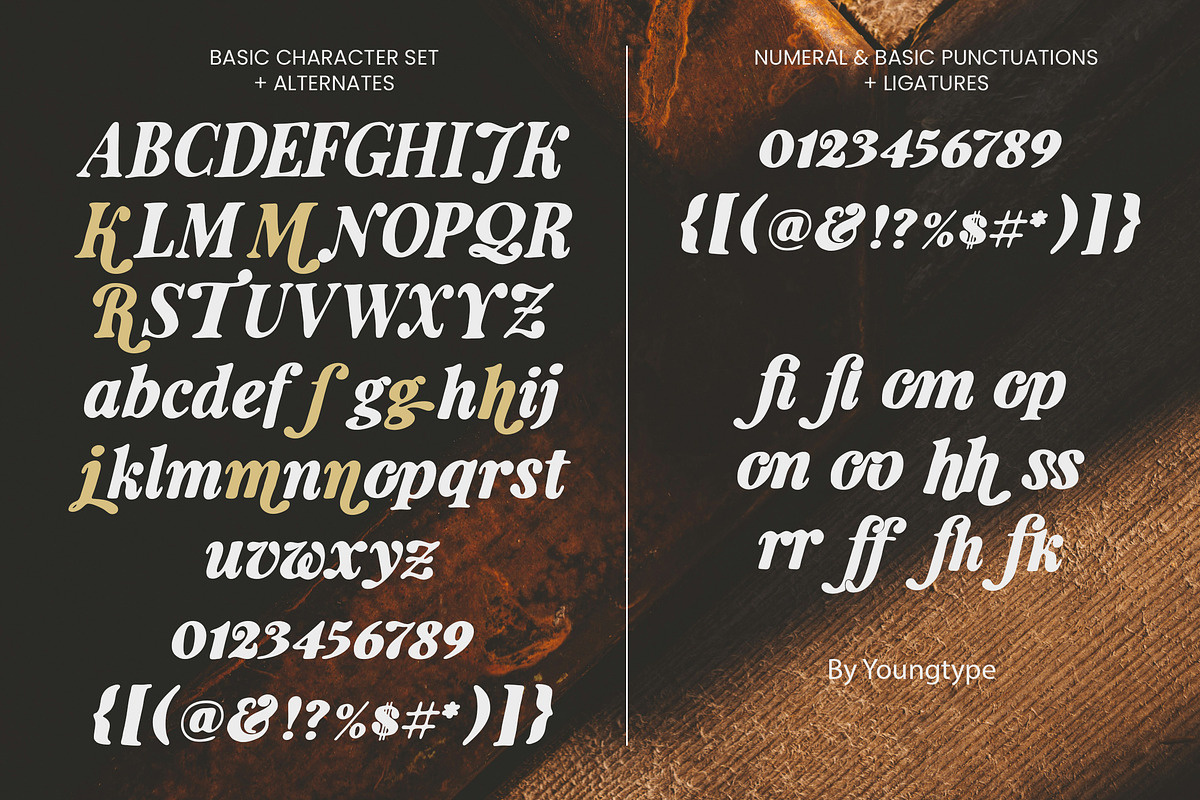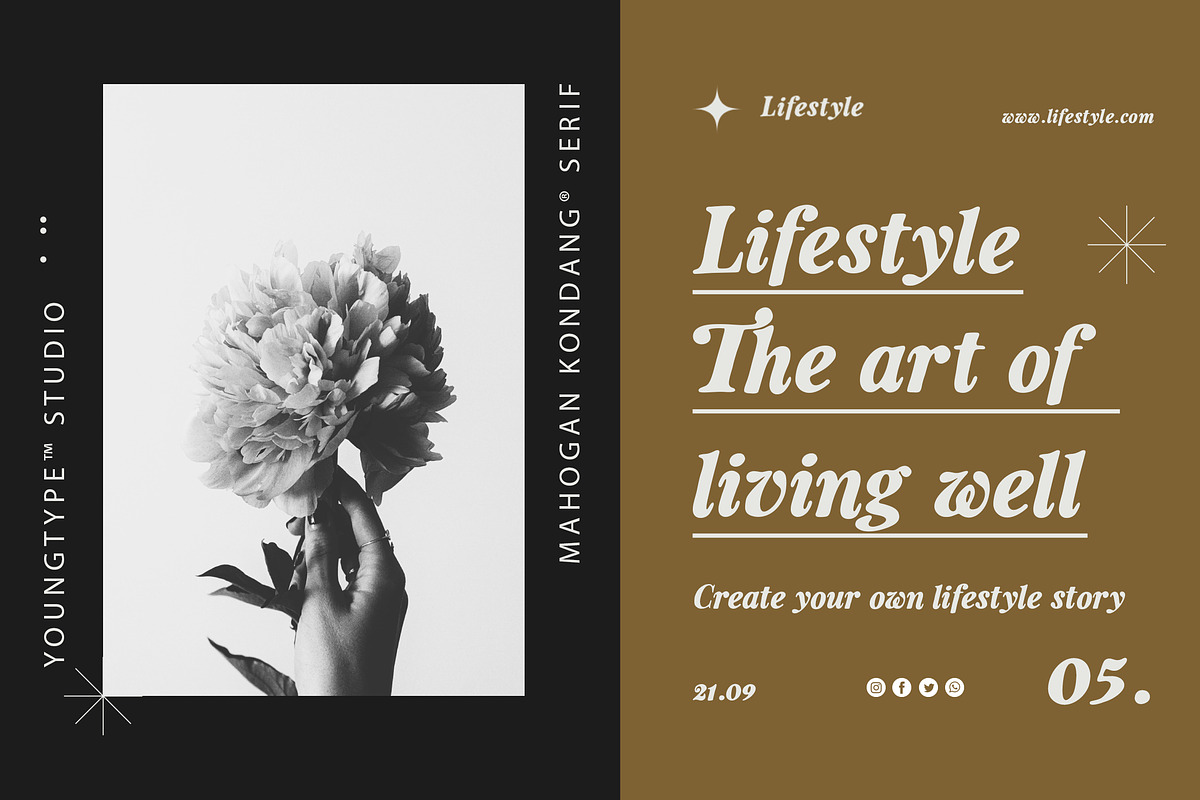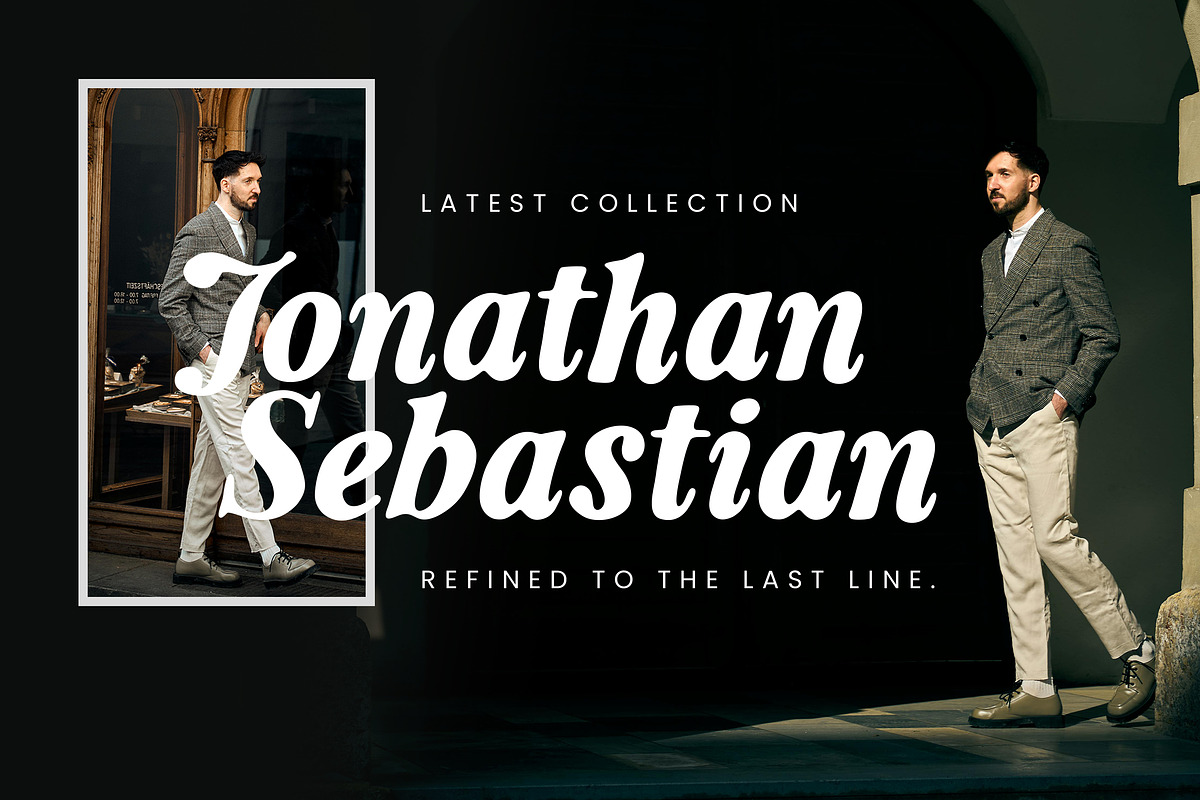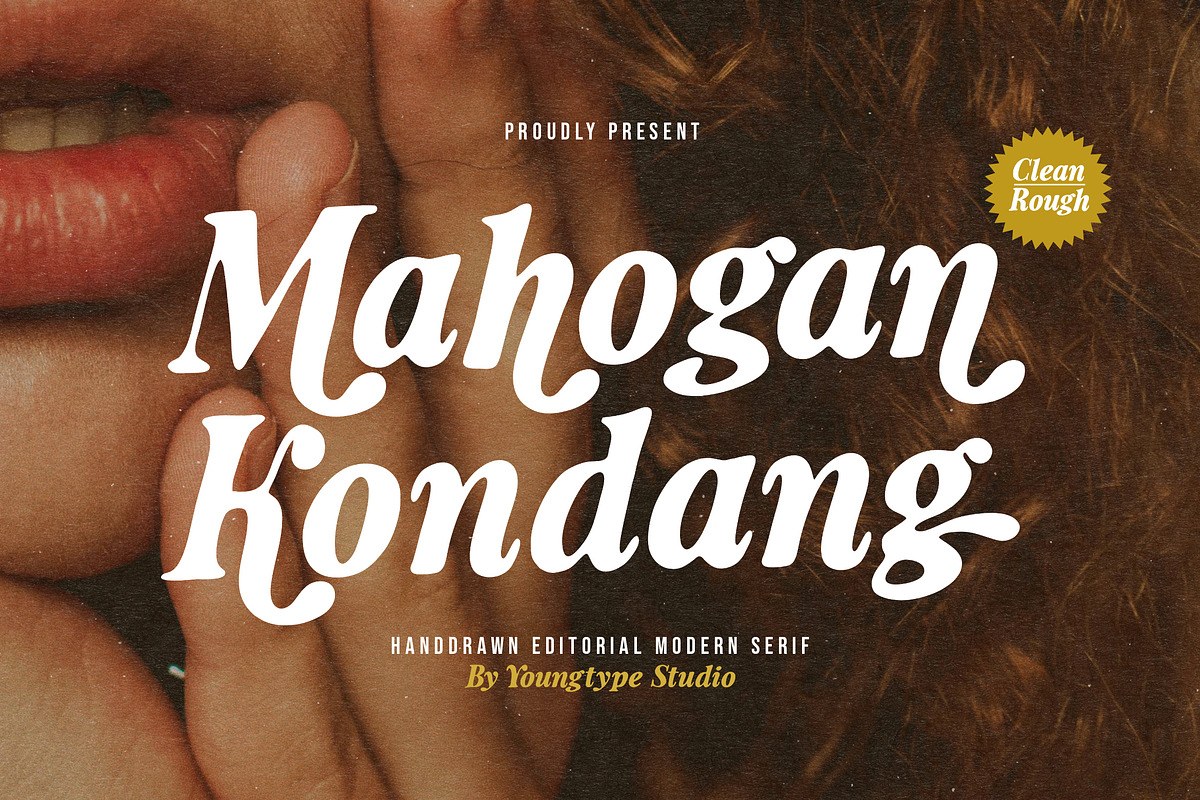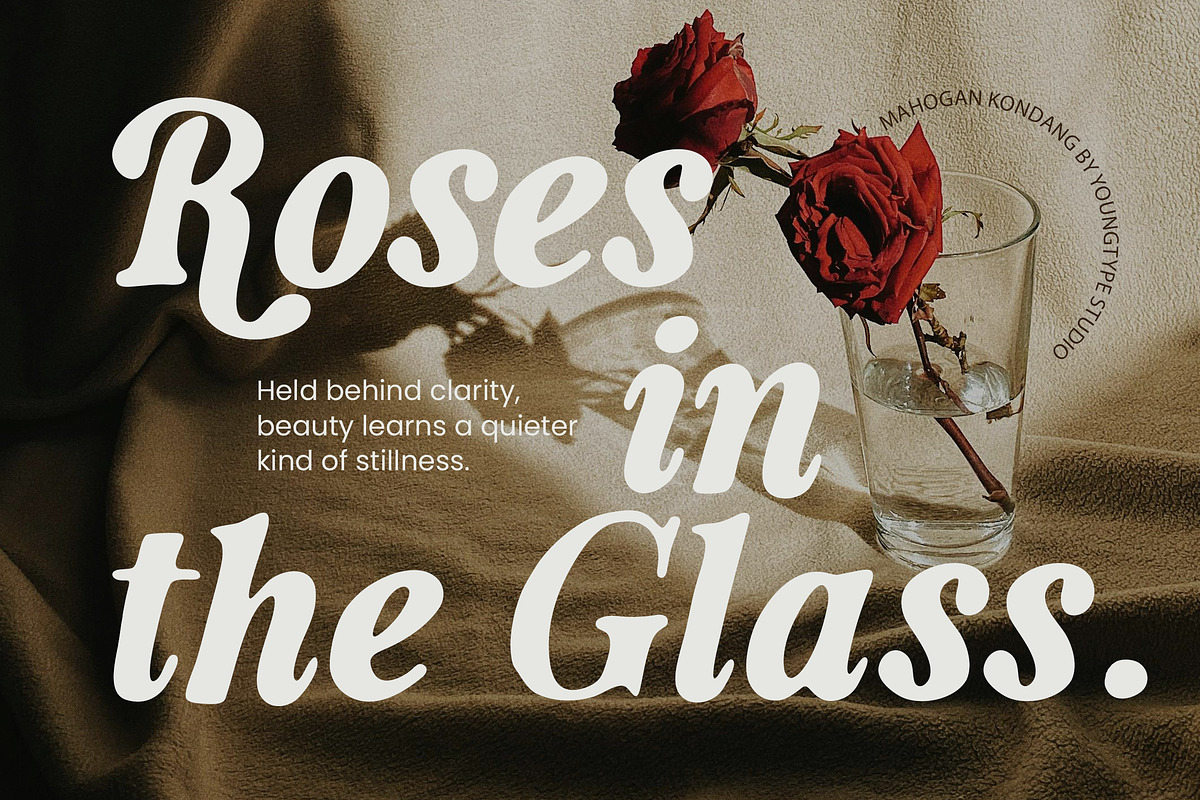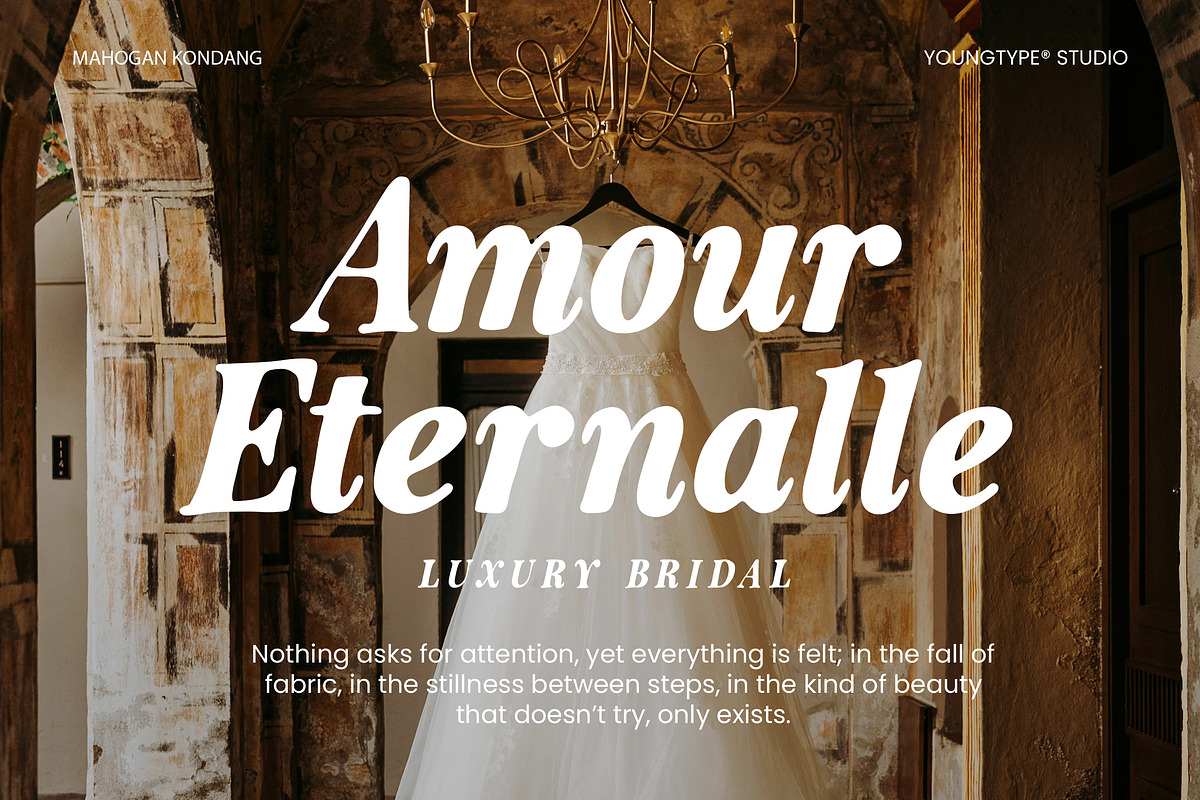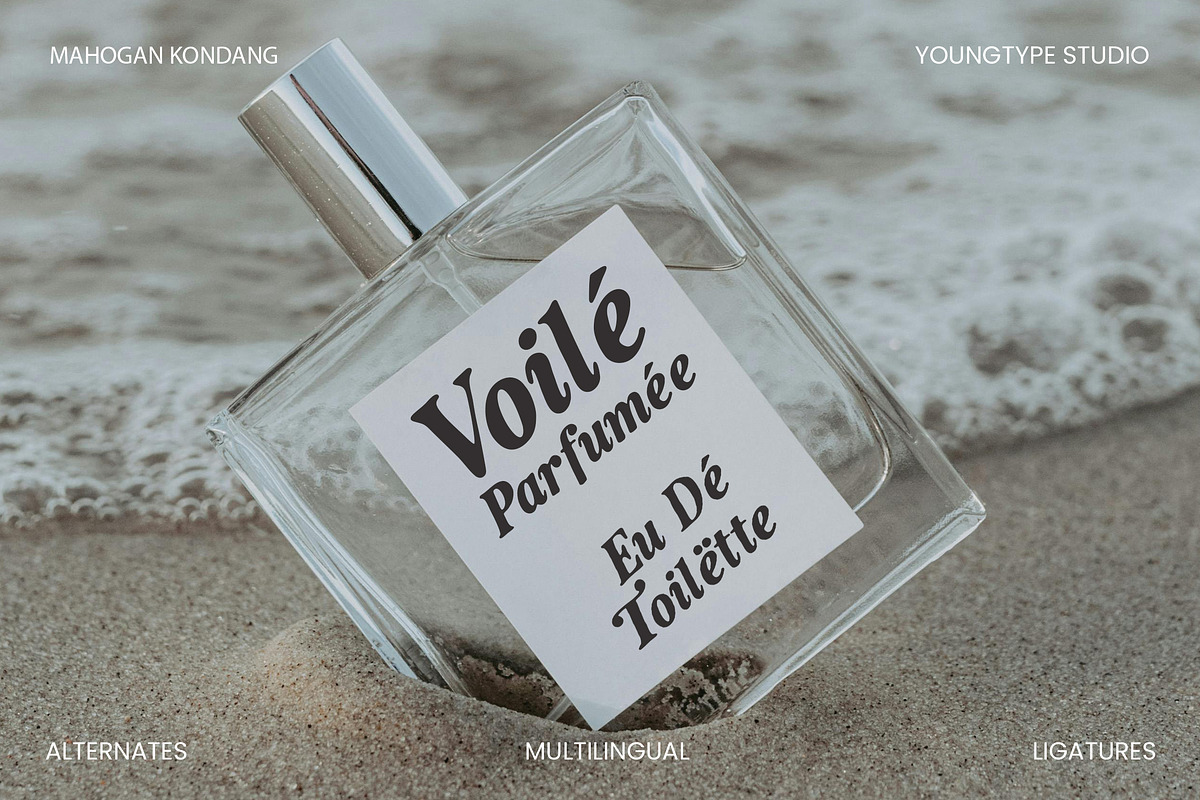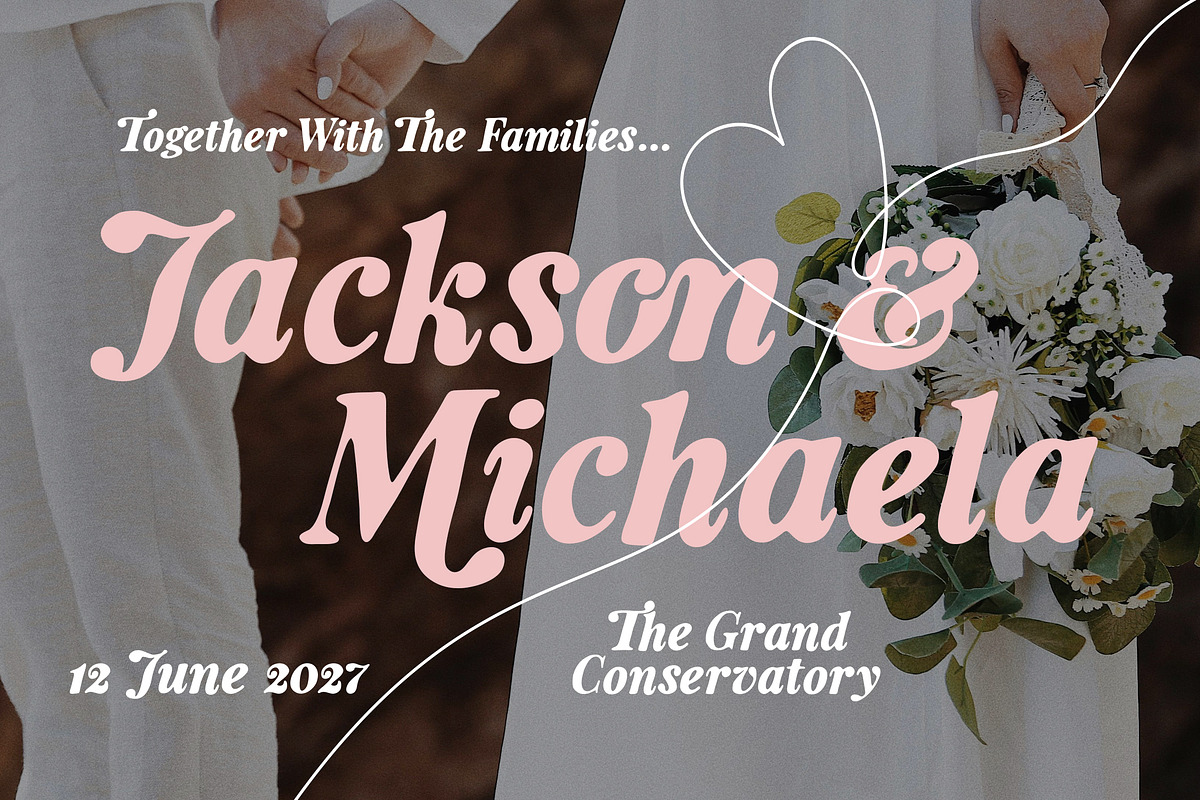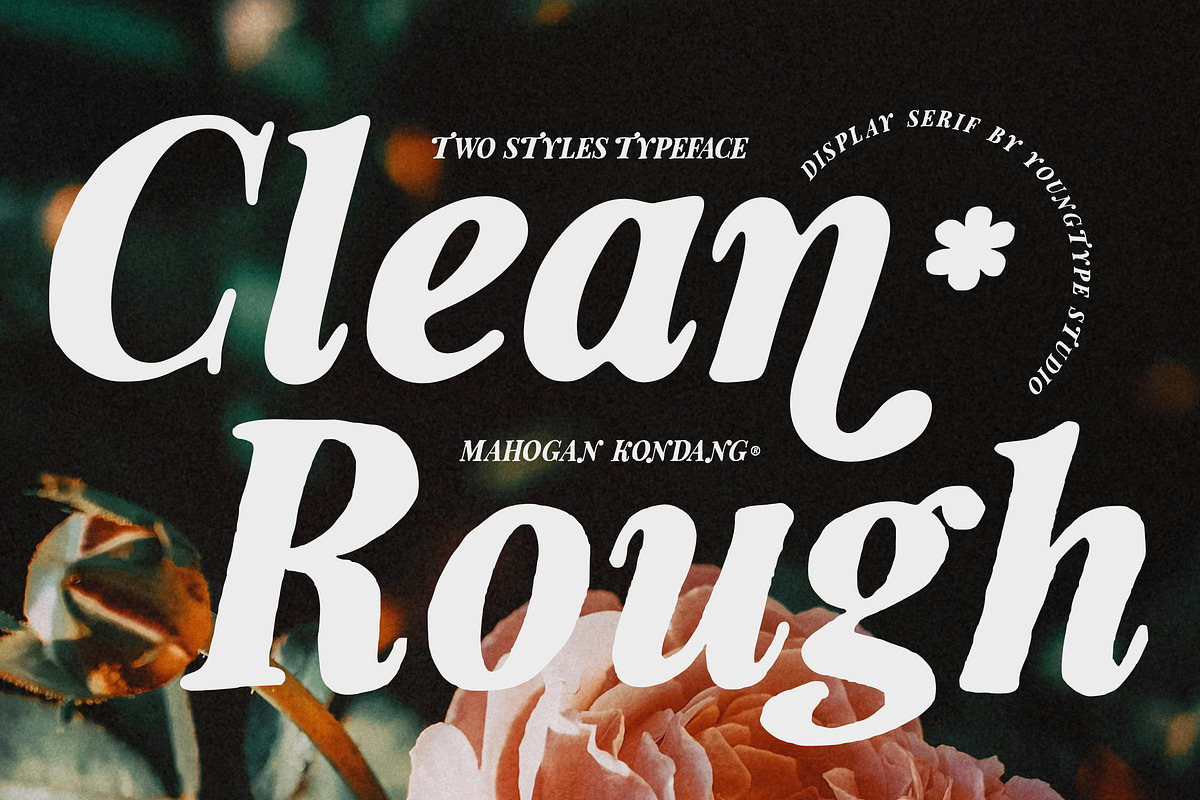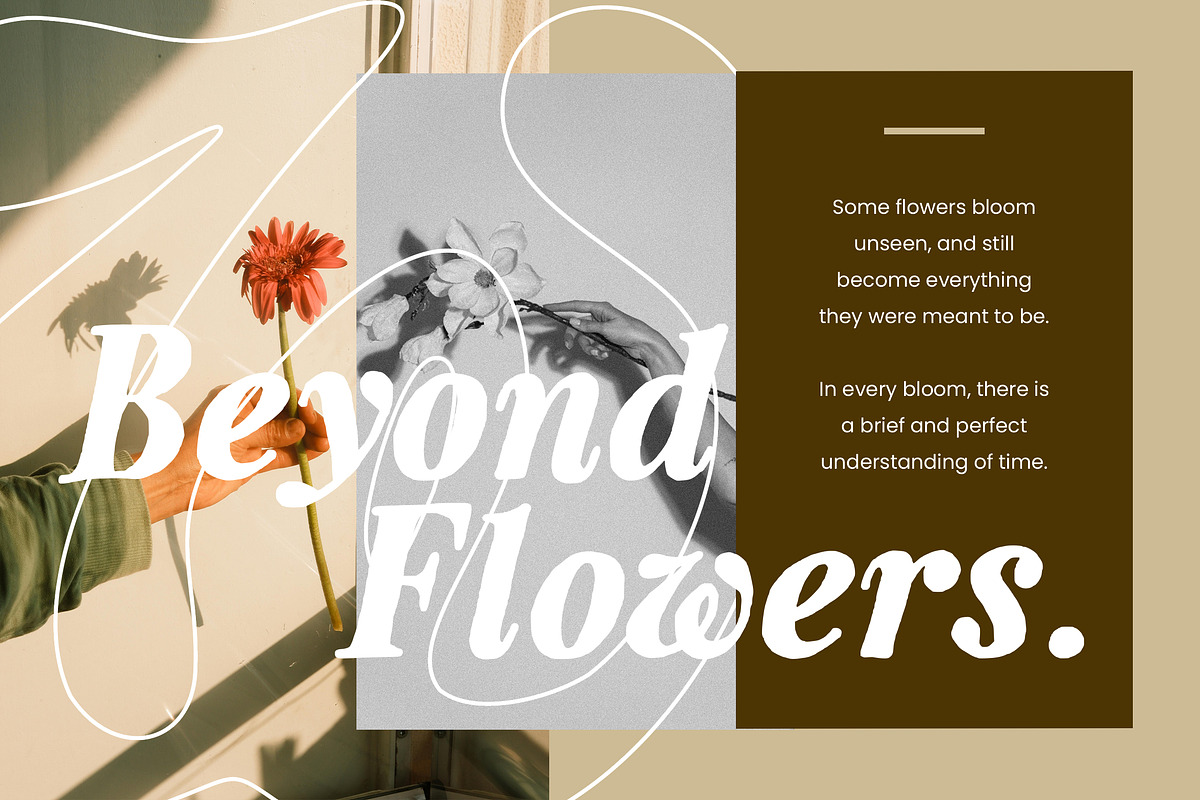
Mahogan Kondang
Mahogan Kondang is a hand-drawn modern serif typeface with a soft, elegant, and slightly vintage feel.
Key characteristics:
Rounded, smooth serifs that give a friendly and refined look
Moderate stroke contrast, making it stylish yet still readable
Subtle calligraphic curves, adding a natural, handcrafted touch
Clean and rough versions, where the rough style adds a textured, organic feel
Overall impression: Elegant, warm, and expressive—perfect for editorial design, branding, logos, and packaging that need a modern yet artistic and human touch.